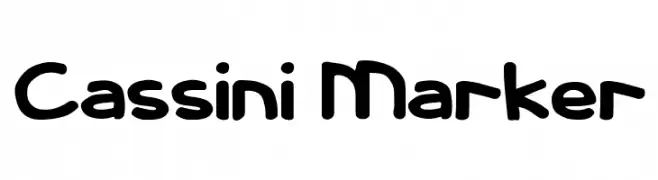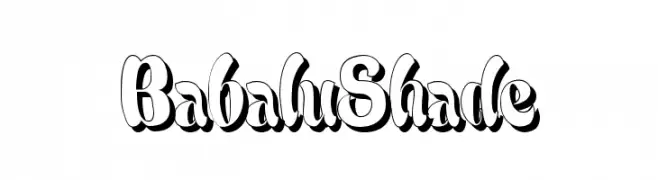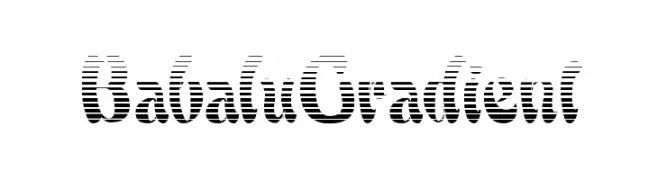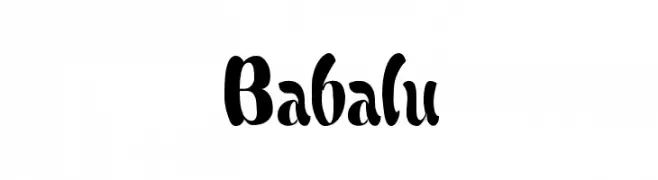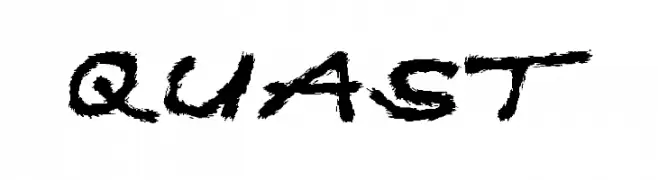
A bold, textured font with a rugged, organic appearance.
A bold, textured font with a rugged, distressed style.
A bold, geometric font with a modern and futuristic style.
A bold, playful font with a 3D shadow effect and rounded, flowing characters.
A bold, decorative font with a striped gradient effect.
A playful, bold font with a whimsical, hand-drawn style.
A bold, brush-style font with a hand-drawn, textured appearance.
A pixelated, grid-like font with a retro digital aesthetic.